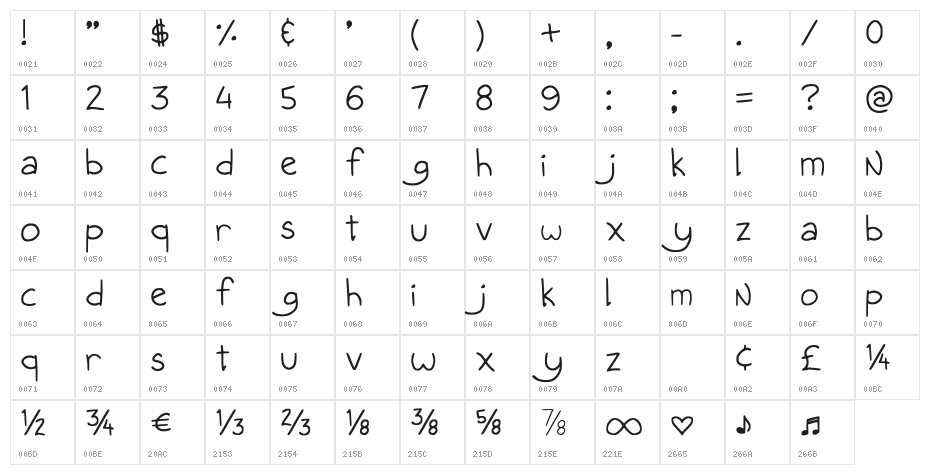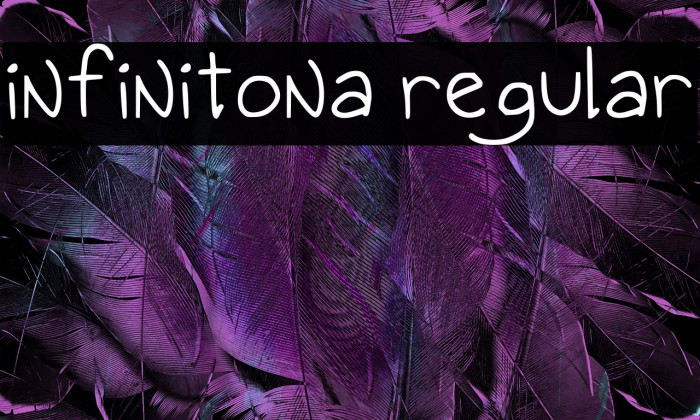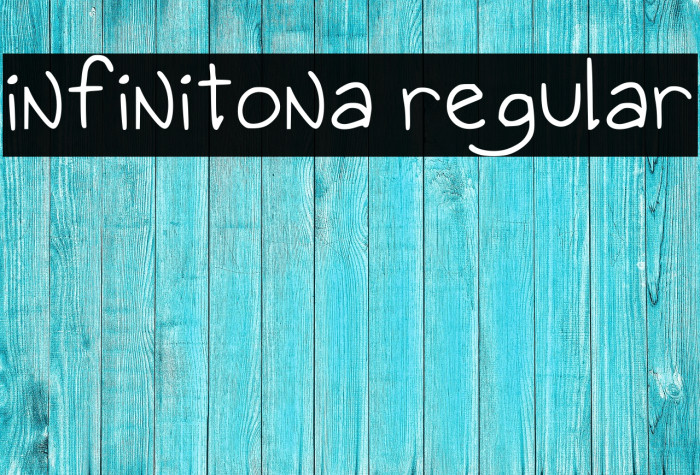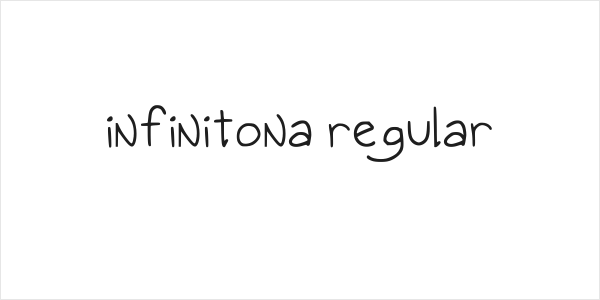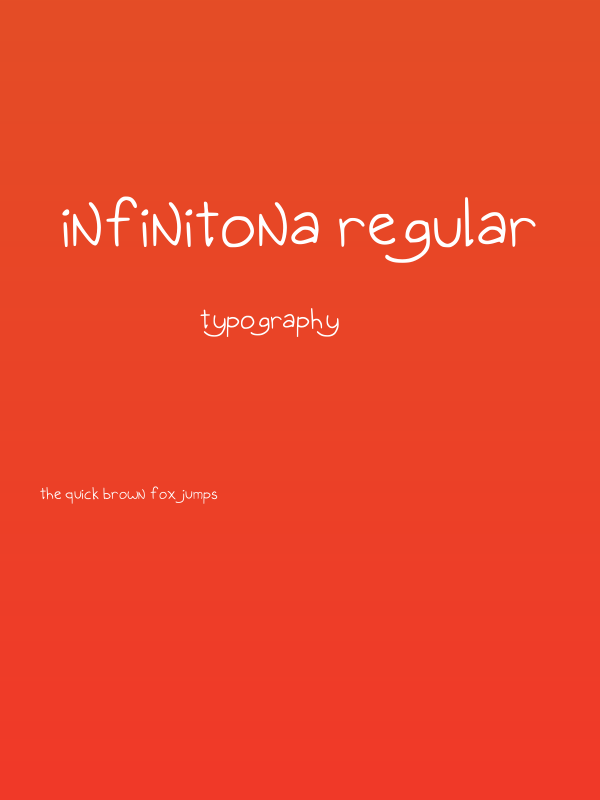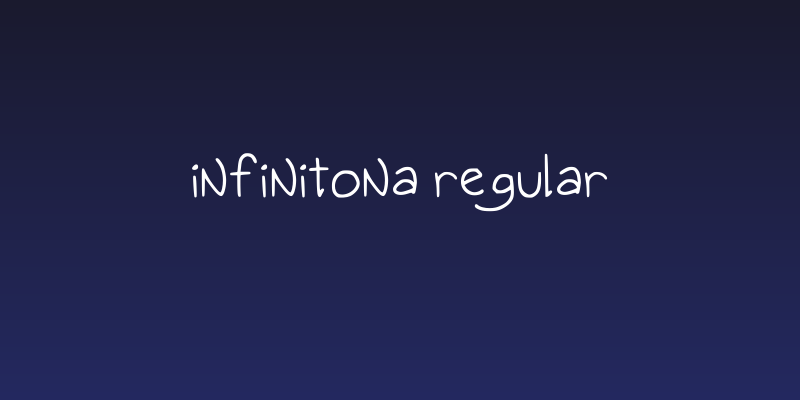
Infinitona Regular Font
Infinitona Regular Description
This font features a playful and casual handwritten style, characterized by its smooth, rounded edges and consistent stroke width. The letters are slightly irregular, giving it a friendly and approachable appearance. The lowercase letters have a whimsical touch, with some characters like 'g' and 'y' having unique loops that add to its charm. The uppercase letters maintain a similar style, ensuring cohesion across the typeface. Numbers and special characters are designed to match the overall aesthetic, making it versatile for various uses. Its simplicity and readability make it suitable for both digital and print media.
| Overall Style | Casual |
| Use Case | Headlines, Logos, Informal Text |
| Proposed Projects | Ideal for children's books, casual invitations, greeting cards, and playful branding projects. |